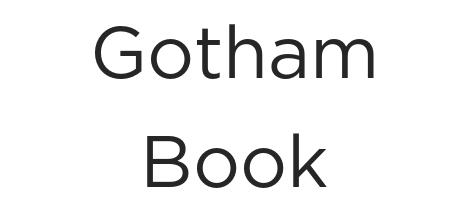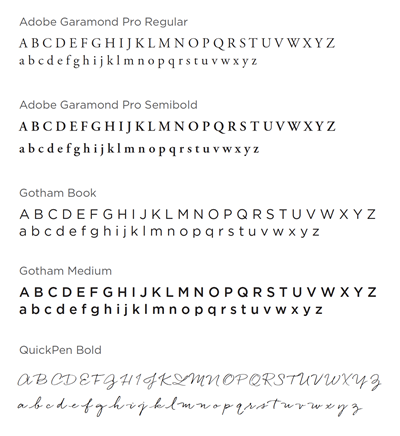
This book typeface is available for free download and it is used for its font generator feature. Uncategorized 504045 downloads download gotham bold italic. An unmannered sans serif with a large lowercase, clear gestures, and generous fit, gotham is naturally at home in the widest range of sizes.
9 styles uncategorized 127 downloads download book& 2 styles uncategorized 23 downloads download Owing to its short ascenders and descenders, gotham sits ‘large on the body,’ appearing bigger than expected at. A sans serif typeface with 7 styles, available from adobe fonts for sync and web use.
This typeface has a neat and defined texture style that is legible for both small and big size screen displays. Gotham is a completely free font that you can use in your graphic designs. There are literally at least hundreds of thousands of different fonts out there.